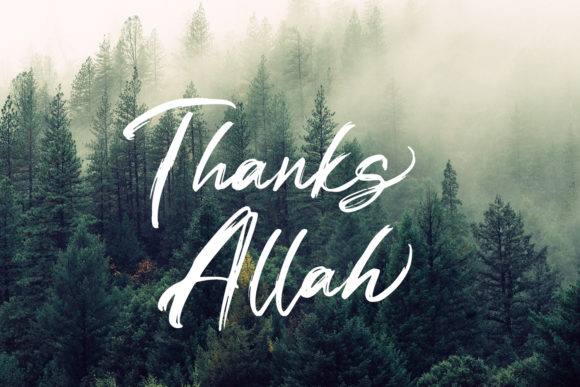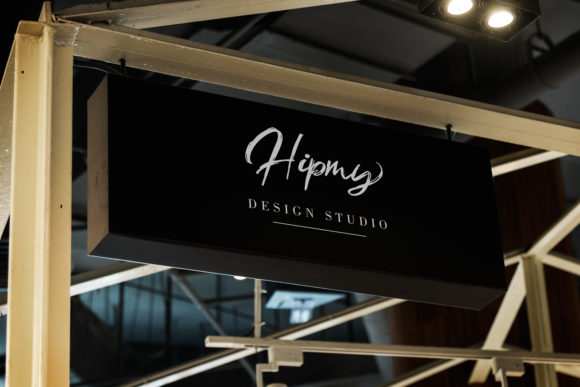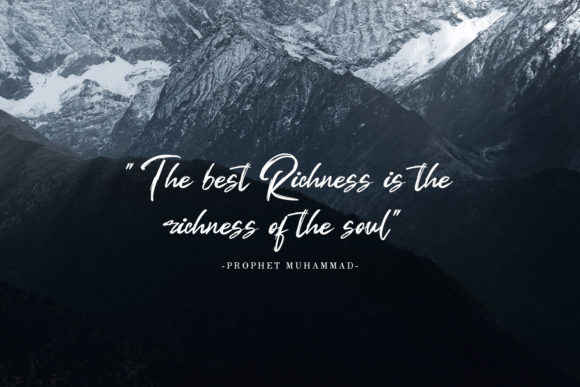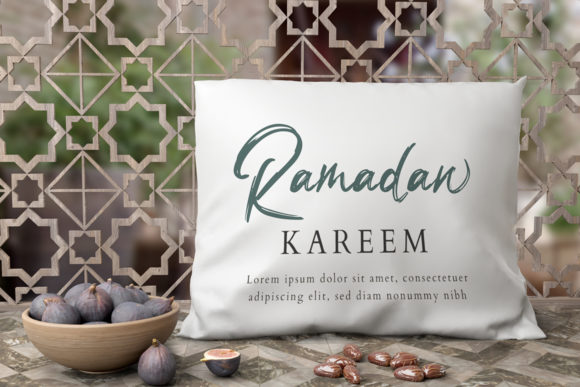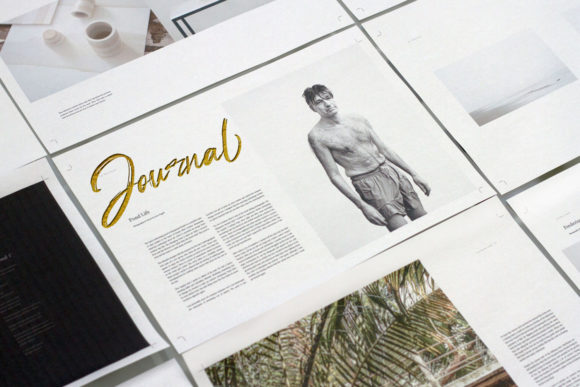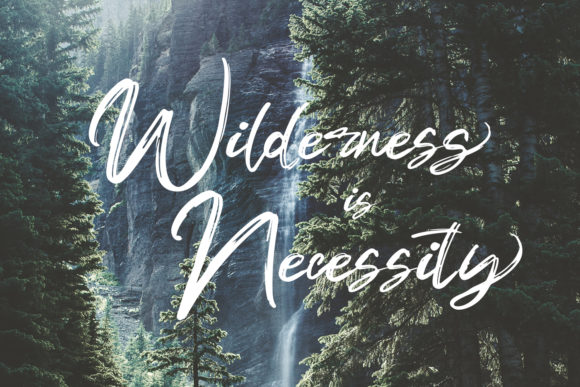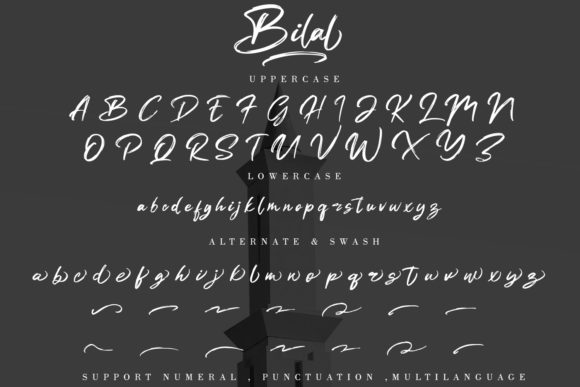
HomeScript FontsBilal Font Script Fonts Bilal Font FacebookXPinterestWhatsApp Bilal Font Poster 2 Bilal Font Poster 3 Bilal Font Poster 4 Bilal Font Poster 5 Bilal Font Poster 6 Bilal Font Poster 7 Bilal Font Poster 8 About Bilal Font Bilal is a sweet and cool handwritten font with a bold vibe. Get inspired by its contemporary lettering. DOWNLOAD ON CREATIVE FABRICAThis font is sold and delivered by Creative Fabrica. Font Canyon may earn a commission if you buy through this link. People also explored Bubble Font Maretha Font Christmas Font Shiny Love Font Umbrella Summer Font Bookochi Font Ramelisan Babydols Font Waterfall Font 355 0 TagsBilal Font Previous articleQibtiyah FontNext articleKhattab Font LEAVE A REPLY Cancel reply Comment: Please enter your comment! Name:* Please enter your name here Email:* You have entered an incorrect email address! Please enter your email address here Website: Save my name, email, and website in this browser for the next time I comment. Personal Use Free Solaria Personal Use Free Read more about this font New Amsterdam Personal Use Free Read more about this font Black Friday Personal Use Free Read more about this font Quickline Personal Use Free Read more about this font BLOG Where to Buy American Fonts Online in 2024 Where to Buy American Fonts Online: The Ultimate Guide for 2024 Looking for the perfect American font to elevate your design projects? You're in the... 5 Fonts That Will Dominate Design Trends in 2026 How to Cut Any Font on Cricut: Convert a Font to SVG (Free) The 10 Best Handwriting Fonts to Add Personality to Your Designs